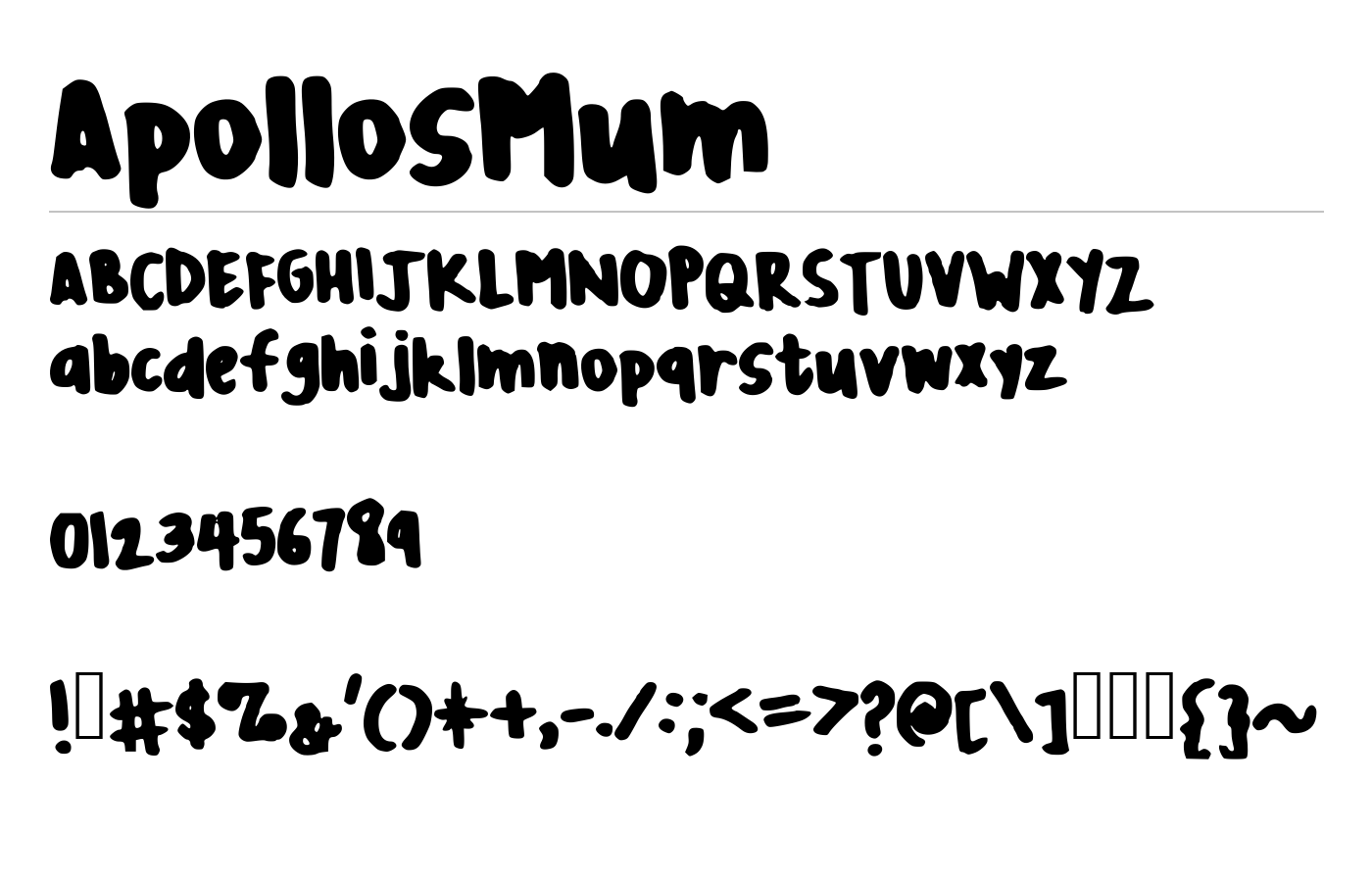
ApollosMum is a bold, playful sans serif font with a hand-drawn, casual feel. Its rounded, chunky letterforms and uneven strokes give it a friendly and approachable character, making it ideal for fun, informal branding, children’s materials, and creative projects. This font works well where a lively, warm personality is needed to engage and entertain the audience.
ApollosMum Font
About ApollosMum Font